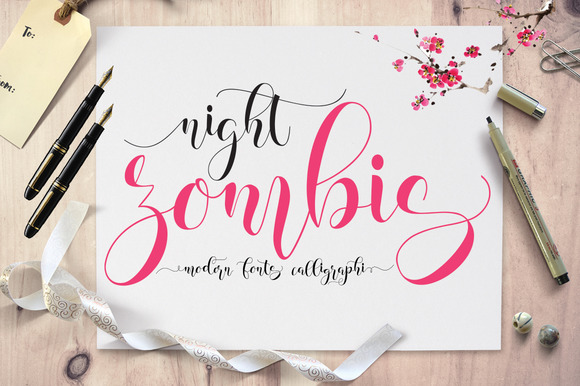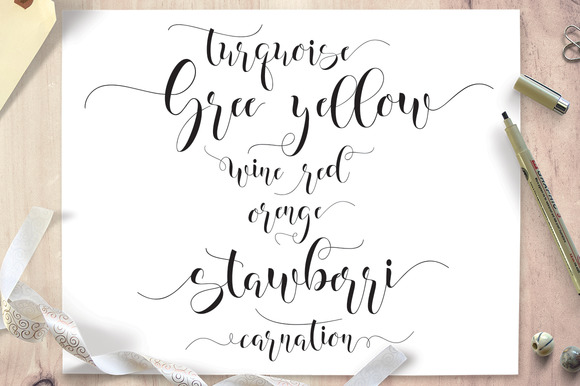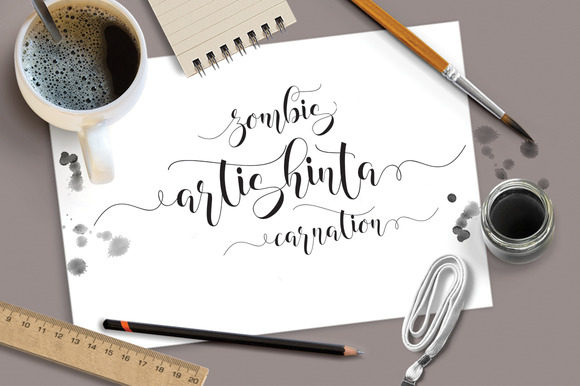
Zombis Night Font
About Zombis Night Font
Zombis Night is a beautiful handdrawn calligraphy style font.
The Night Zombis font features 520 unique glyphs.